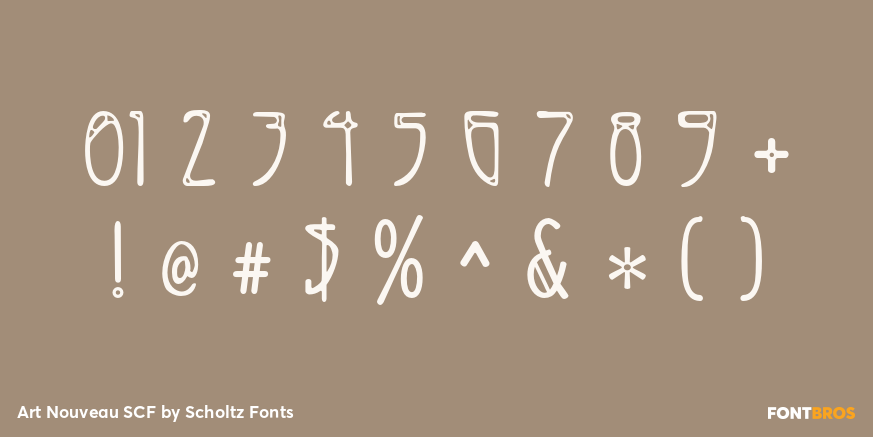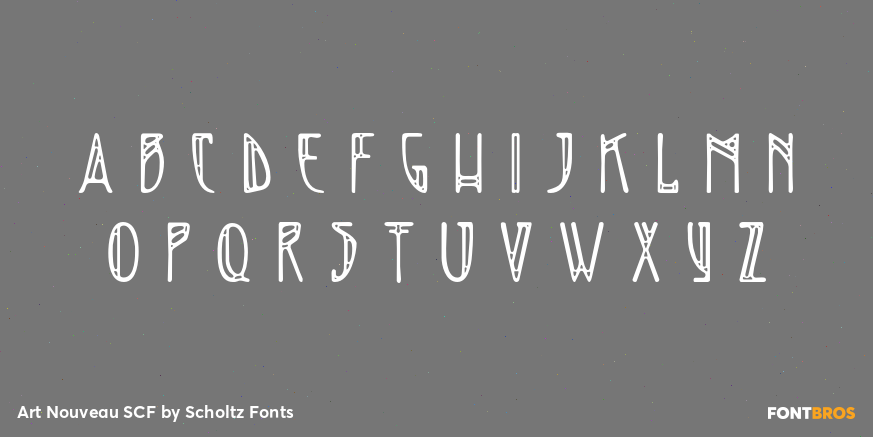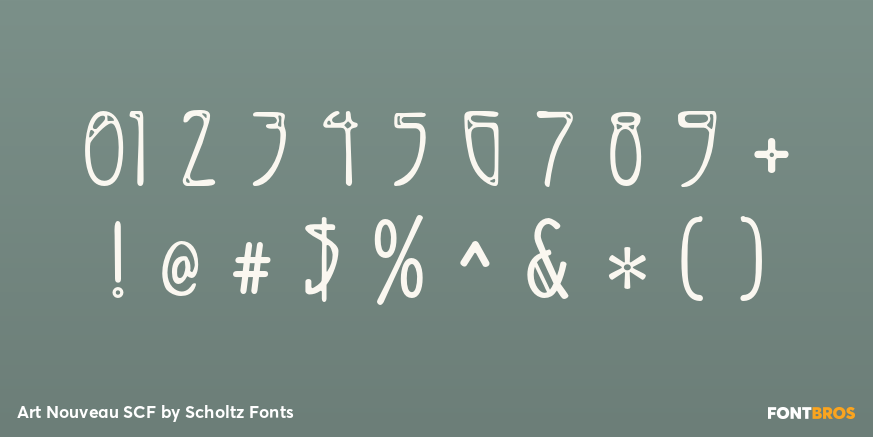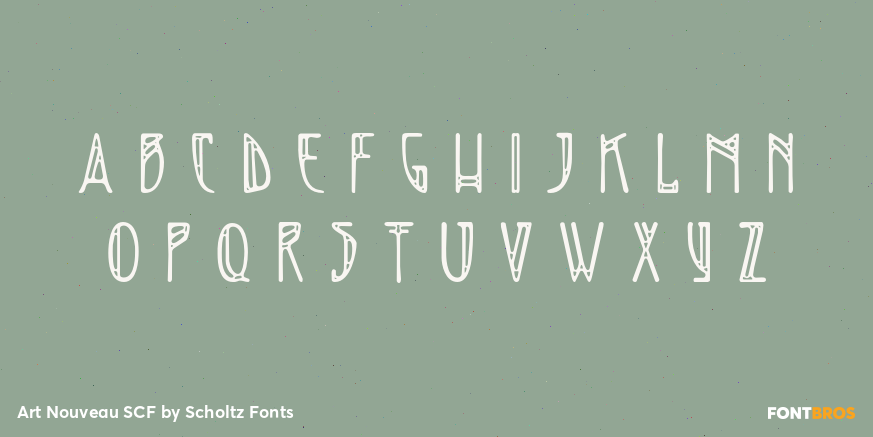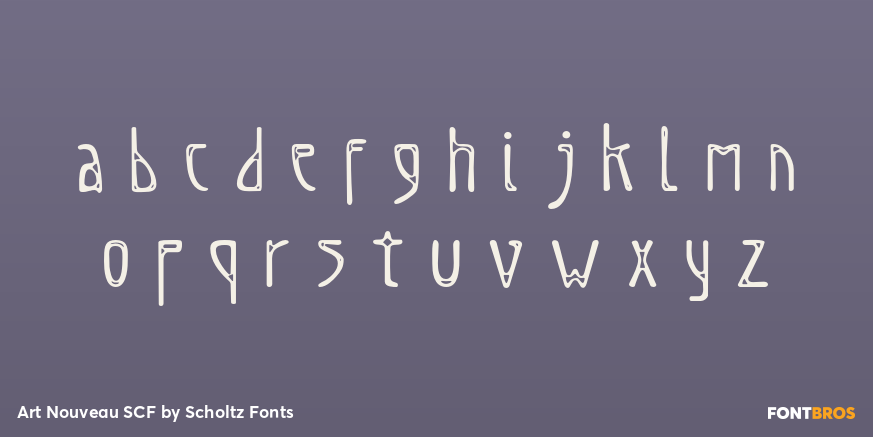
Art Nouveau SCF
Font Family by Scholtz Fonts
The Art Nouveau styles of the the turn of the 20th century (1890 - 1905) exhibited a bold approach to organic lines and lavish decoration. This new style was spread throughout the world and helped usher in a new era that led to modern art and design. Art Nouveau SCF is strongly influenced by the style of decoration and typography created by Rennie Mackintosh as well as the Art Nouveau movement in general (with particular reference to Gustave Klimt and Alphonse Mucha). However, it differs from much of the art nouveau typography in that it largely avoids the use of straight lines in its letter forms.
It is a decorative, romantic font and its subtly curved bolder lines contrast with delicate tracery to create an intricate pattern of organic flowing shapes.